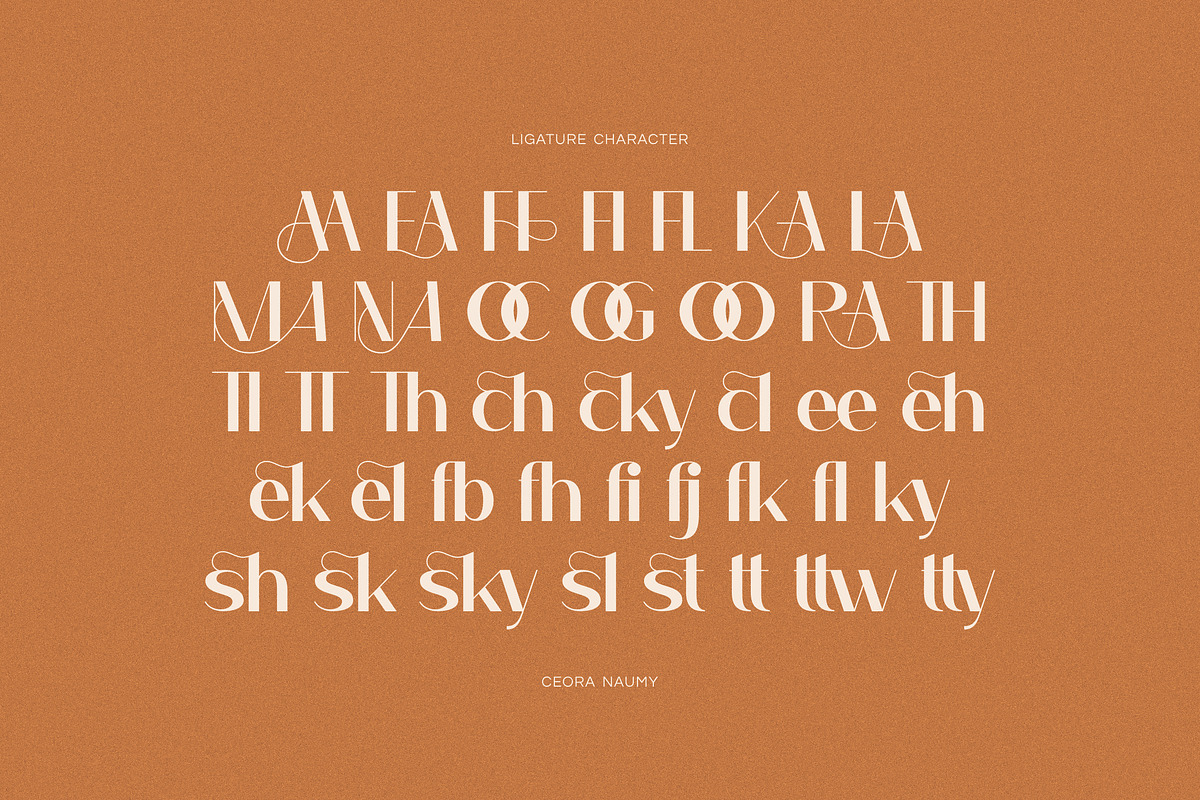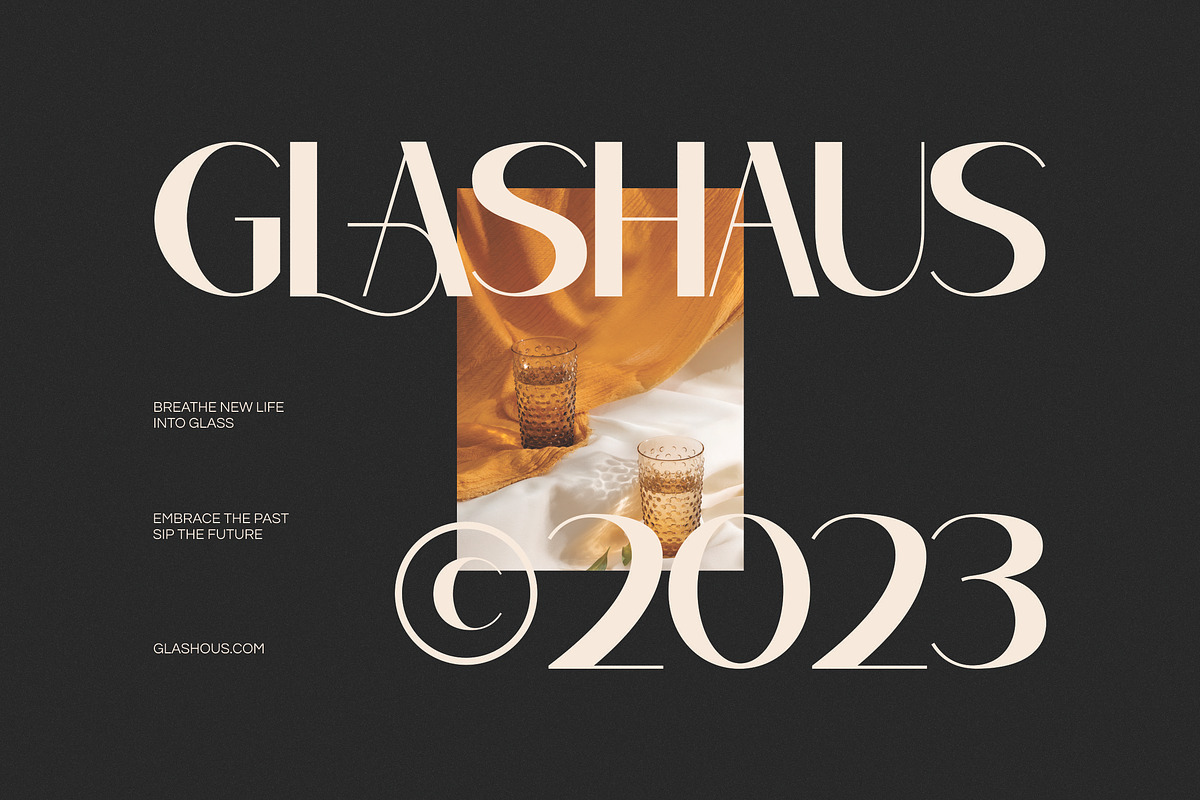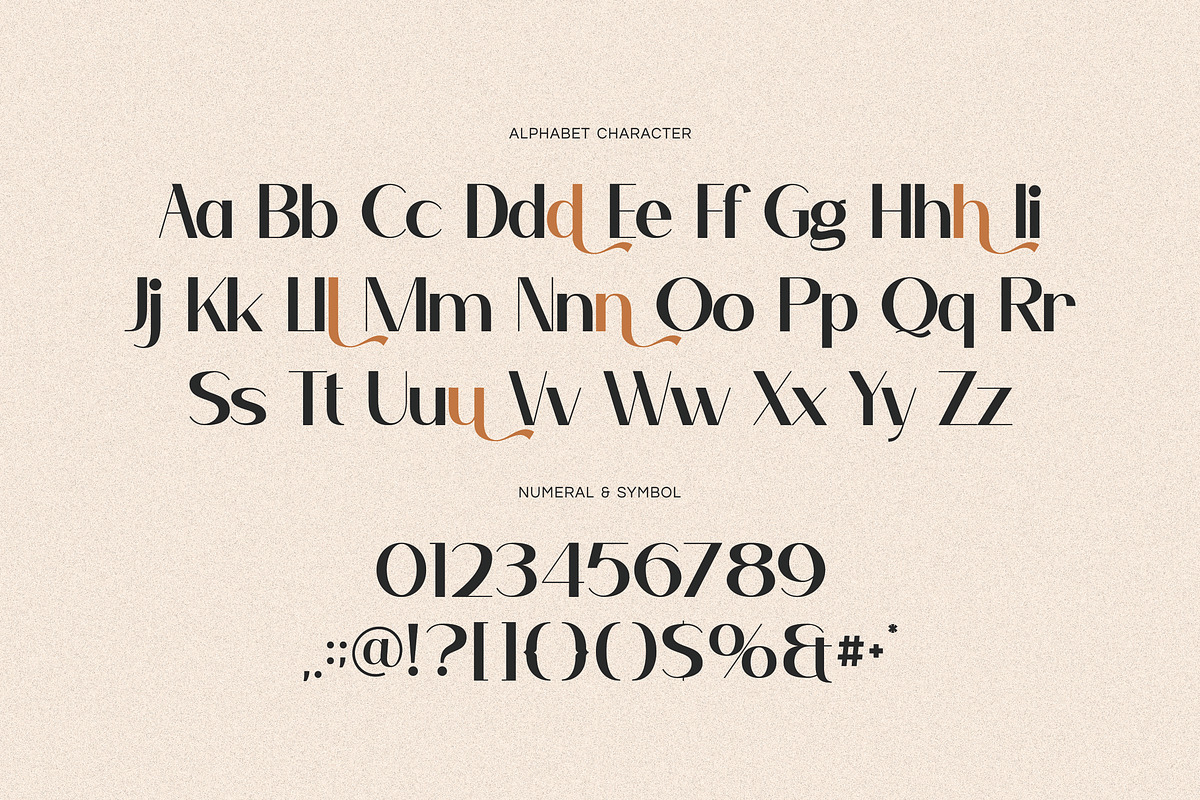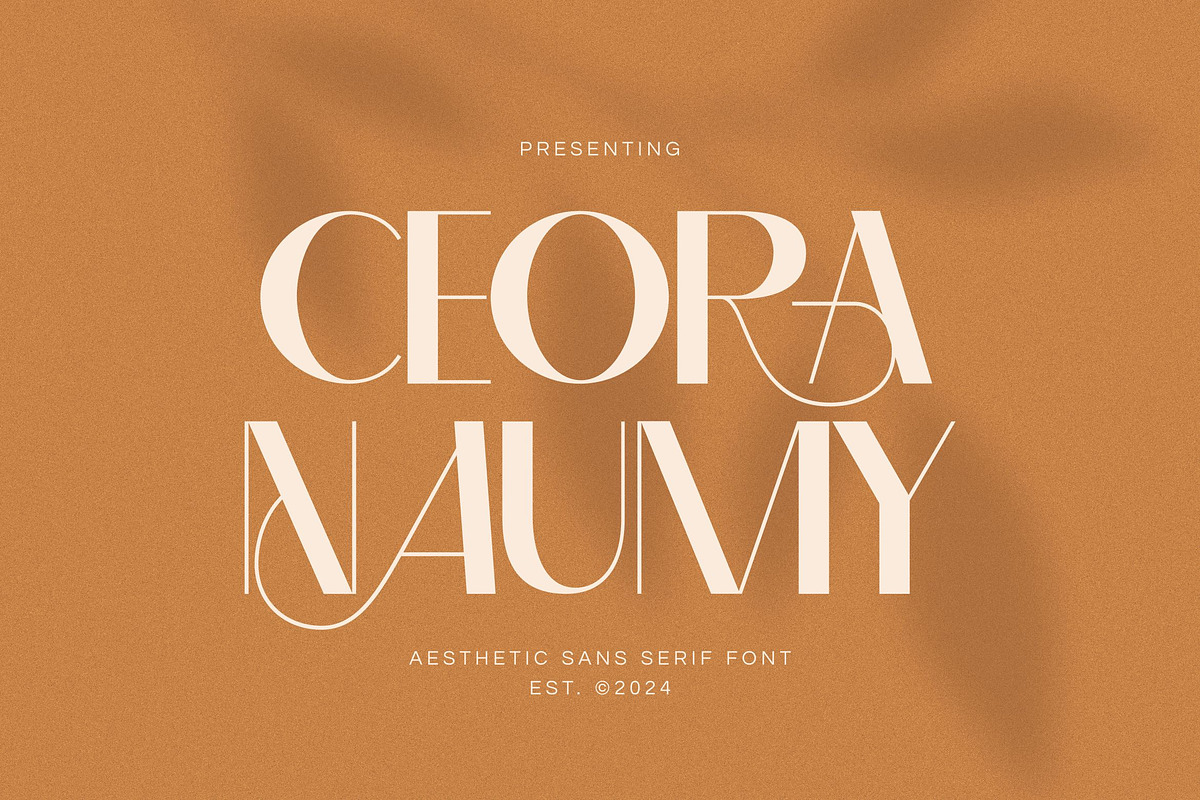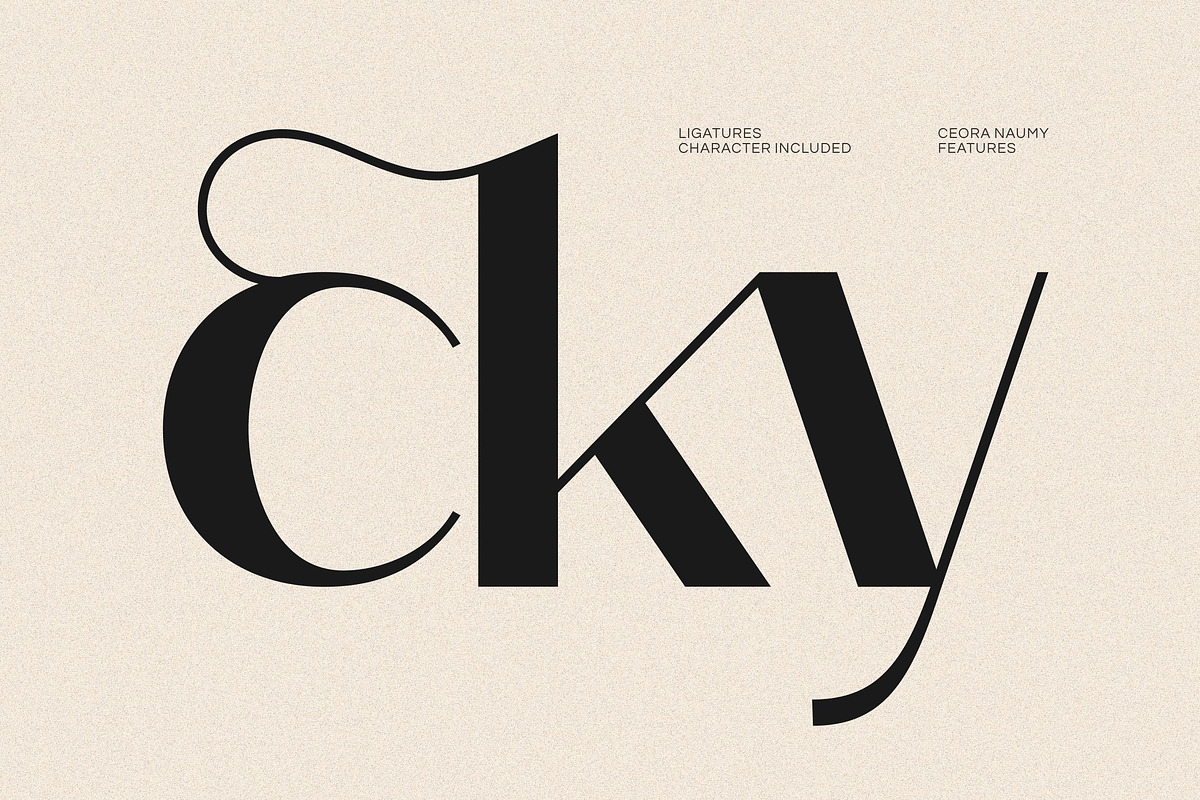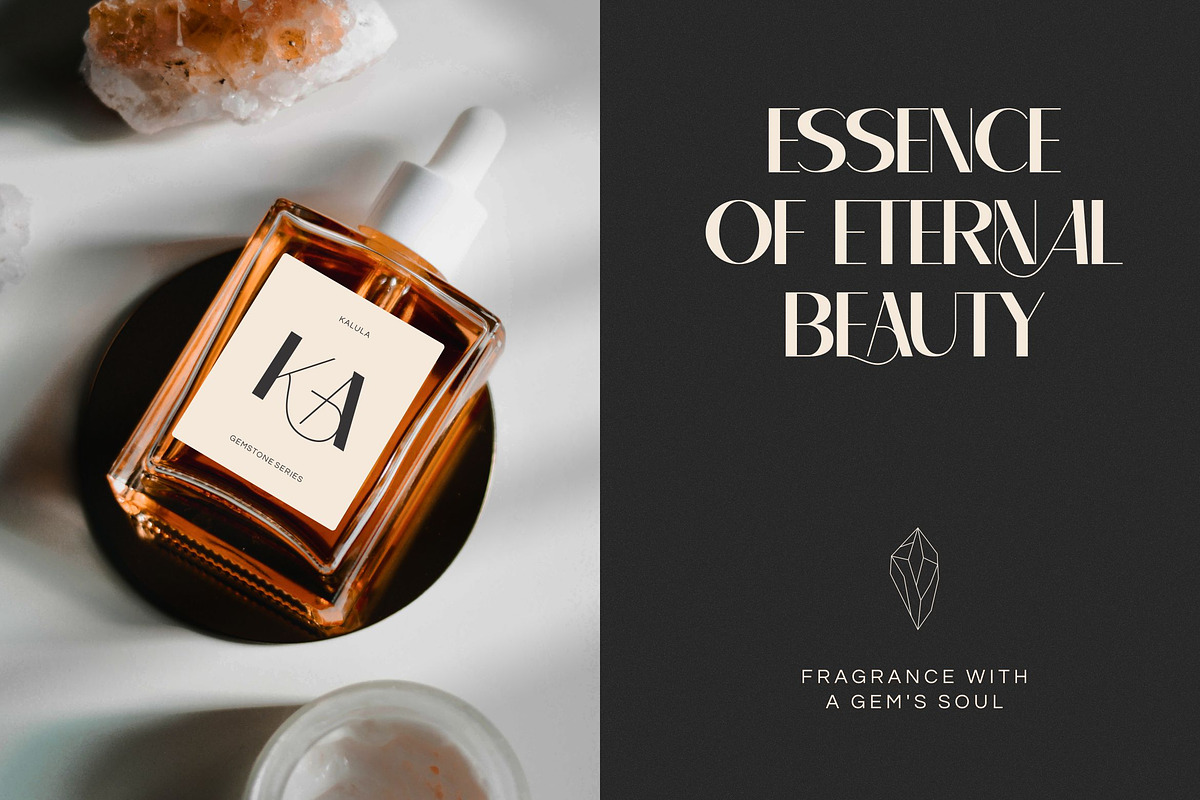
Ceora Naumy - Aesthetic Sans Serif
Introducing Ceora Naumy, a cutting edge aesthetic sans serif typeface that seamlessly incorporates elements from serif typefaces, It's flowing curves and refined serifs evoke a sense of timeless luxury, enchants, making it the perfect choice for projects that demand both beauty and impact.
Its clean lines and subtle serif inspired details create a harmonious blend that stands out in both digital and print media. Experience the essence of modernity and timeless elegance with Ceora Naumy. Perfect for designing a high end fashion magazine, crafting a memorable wedding invitation, or branding a luxury product, Ceora Naumy will elevate your work to the divine.
- Punctuation, Alternates and, Ligatures
- Number and Symbol
- Opentype Features